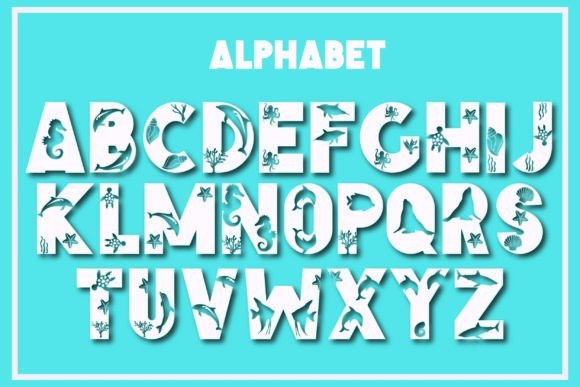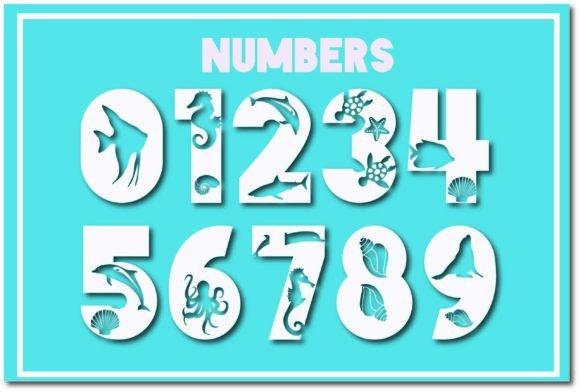
Introduction to Ocean Wold Font Font
Fonts play a crucial role in design, and the Ocean Wold Font font is a typeface that brings both character and versatility to any project. Whether you’re working on a branding project, a website, or a print design, the Ocean Wold Font font offers a unique style that can elevate your work.
Ocean Wold is a cute and adorable decorative font.
Add it to each of your party invitations, swimming gathering, or pretty much any design that requires a touch of youth and joy .
Key Features of Ocean Wold Font Font
Why Choose Ocean Wold Font Font?
The Ocean Wold Font font is more than just a typeface – it’s a design tool that helps you communicate your message with style and clarity. Its unique character set and versatile design make it suitable for a wide range of applications, from elegant invitations to bold headlines.
With its carefully crafted letterforms and balanced proportions, the Ocean Wold Font font ensures readability and visual appeal across all mediums.
What makes Ocean Wold Font font special?
The Ocean Wold Font font stands out with its unique design, exceptional readability, and versatility across various design applications.